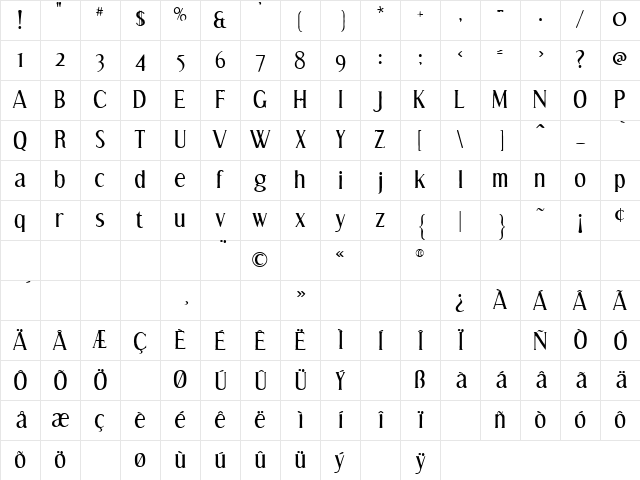
Complete Effloresce Antique Regular glyph index. Displaying only characters natively supported by Effloresce Antique Regular font.
Effloresce Antique wears its vintage influences proudly, with letterforms that recall mid-century signage, classic packaging, and nostalgia-driven design.
Font Pairing: Combine Effloresce Antique with a simple slab or neutral sans - period-accurate companions reinforce the vintage feel without competing for attention.
Pro Tip: Lean into Effloresce Antique's period character by pairing it with aged paper textures, muted colour palettes, and vintage illustration styles.